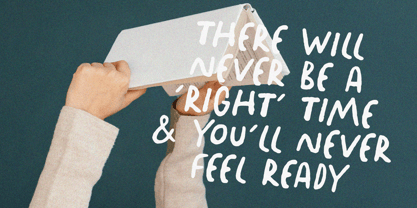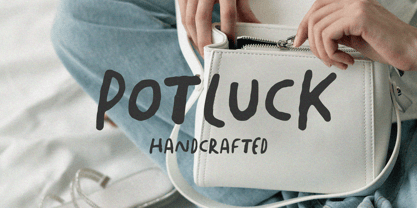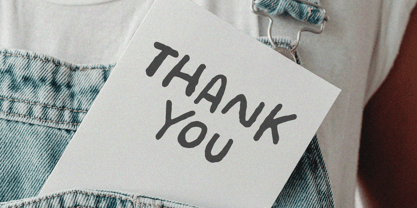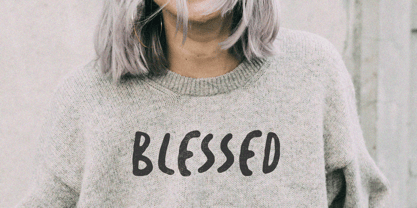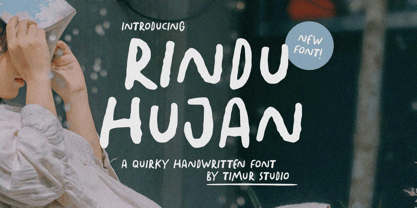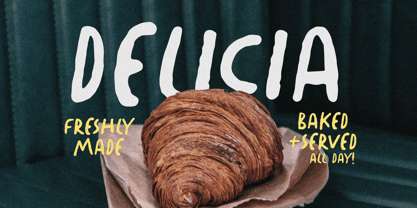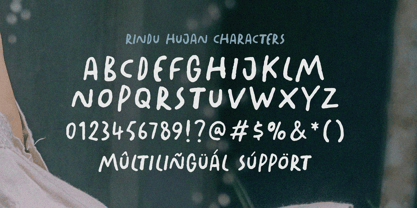
Rindu Hujan
by Timurtype
Introduced by Timurtype Studio!
Rindu Hujan is a Quirky Handwritten Font
Rindu Hujan is a quirky handwritten font full of charm. With its playful curves and slightly irregular strokes, it captures a nostalgic, heartfelt mood—perfect for movie posters or book titles that tell a whimsical, emotional, or romantic story. Whether it’s a coming-of-age tale or a cozy indie drama, Rindu Hujan adds a touch of soulful character that feels both intimate and unforgettable.
Rindu Hujan Font also supports multilingualism